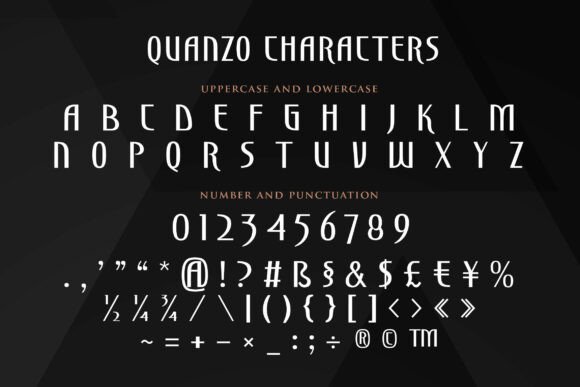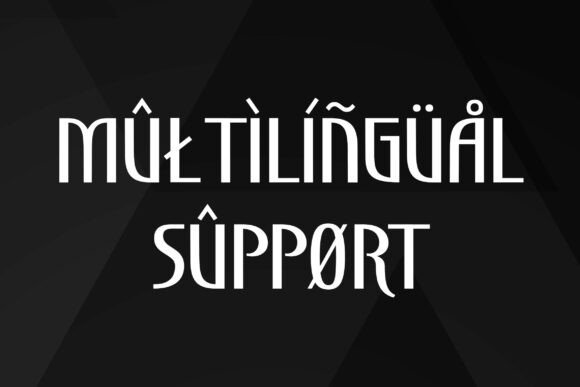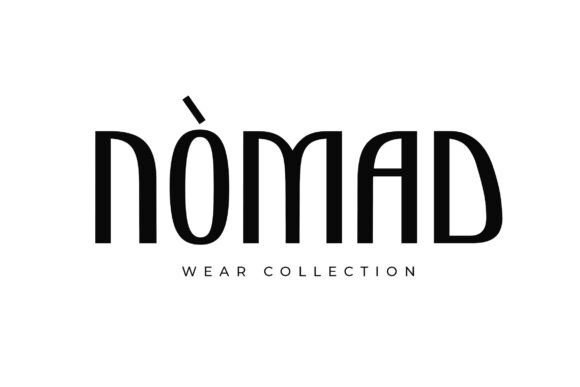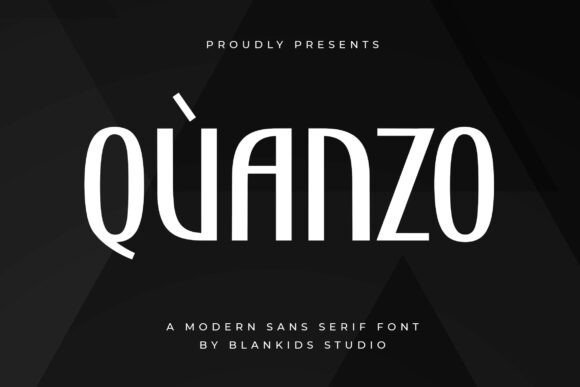
Introduction to Quanzo Font
Quanzo is a modern sans serif font, made for any professional project branding, such as logotype, watermarks, poster, branding, promotions, product packaging, etc.
Every letter has a modern elegant style design .
Key Features of Quanzo Font